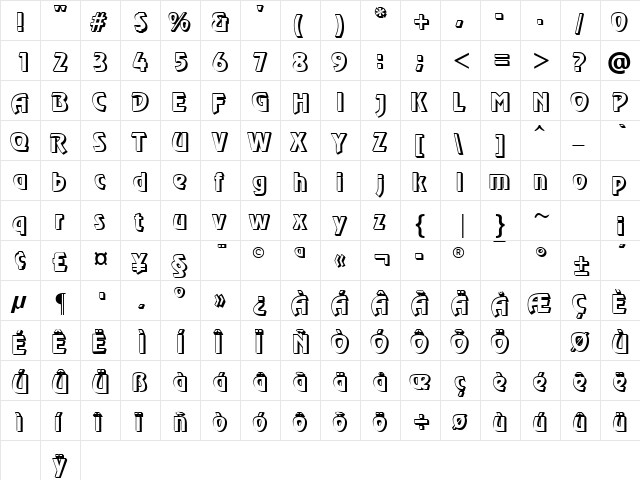
ChorusLineShadowSSK Regular
Design Context for ChorusLineShadowSSK Typeface
ChorusLineShadowSSK brings ornamental detail and strong personality to headlines and identities, where visual impact matters more than quiet functionality.
Font Pairing: Pair with a clean neutral sans-serif for body copy to let ChorusLineShadowSSK's character lead without overwhelming the composition.
Pro Tip: Use ChorusLineShadowSSK exclusively at display sizes — it was designed to be seen, not read at length. Let a neutral companion handle body copy.